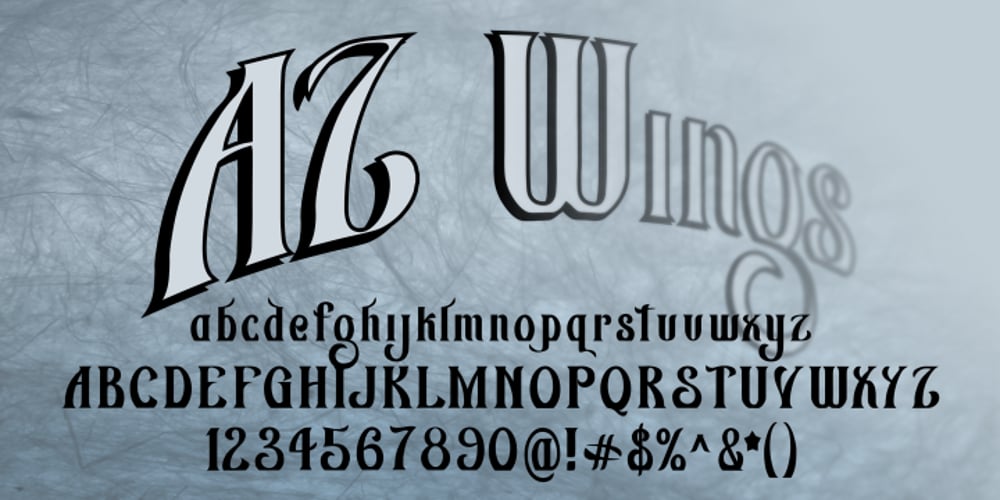
AZ Wings Font Family was designed by published by Artist of Design. AZ Wings contains 1 styles and family package options. AZ Wings font has some inspiration from an old “Gull Wing Trucks” Skateboard sticker and also borrows from blackletter styles, but for the most part is is completely original. This font was designed solely for use as a headline with unique complementing ascenders and decenders.